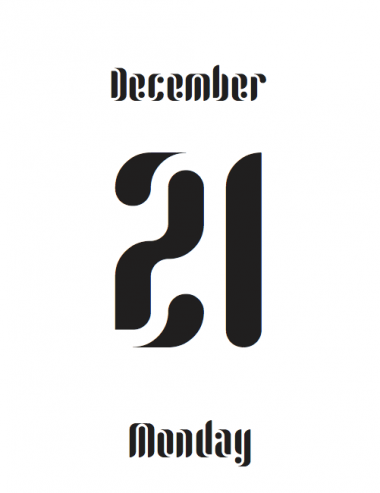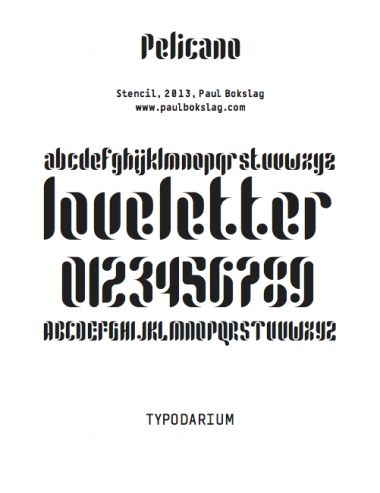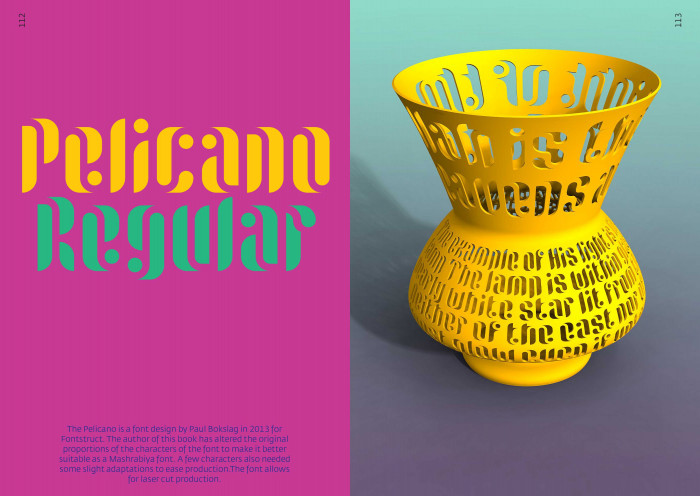
pelicano
Amazing stencil! Nice work. 10/10
Now this is very much to my liking :)
Great use of new bricks. 10/10
Well, I think he didn't use new bricks except for punctuation, and that's the beauty of it :)
Thanks for the thumbs up. I started this with the new bricks in mind, but ended up not using them after all, except for a few fins in the comma-like punctuation.
In that case ... even greater use of old bricks. :)
Congratulations! FontStruct Staff have deemed your FontStruction worthy of special mention. “pelicano” is now a Top Pick.
very nice work
Pelicano and seven of my other fonts feature in 'Mashrabiya Fonts' by Edo Smitshuijzen. It was published by Khatt Books in 2018.